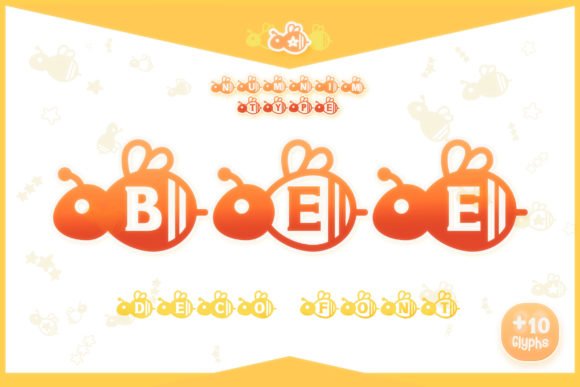
The Buzz on Bee Font: Elevating Your Designs with a Touch of Whimsy
Have you ever been brainstorming ideas for a project, and suddenly, a spark of creativity hits you? Maybe it’s a playful combination of colors, a quirky character, or a fresh font that makes your design pop. For many designers, that ‘aha’ moment is what drives their creativity and inspires them to push boundaries.
One such font that can spark that magic is Bee Font – a delightful, handcrafted decorative font that’s perfect for adding a dash of fun to your designs. With its playful characters and PUA encoding, Bee Font is ideal for stickers, mugs, t-shirts, and so much more. As a designer, you’ll love the ease of accessing all glyphs and swashes, making it a valuable addition to your creative toolkit.
Bee Font Key Features
• Font Style: A unique, hand-drawn font with a playful and whimsical feel.
• Character Set: Includes a wide range of characters, including uppercase and lowercase letters, numbers, and punctuation marks.
Bee Font Review
As a designer, I was excited to dive into the world of Bee Font. I’ve worked with a variety of fonts, and I have to say, this one has some unique qualities that set it apart. ✨ One of the things that works well is its playful, handwritten feel. The font is perfect for creating a fun, whimsical atmosphere in your design, and it’s especially great for branding and marketing materials.
Another strength of Bee Font is its versatility. It comes in a range of styles, from bold and confident to delicate and elegant. ✨ Whether you’re looking to create a modern, edgy vibe or a more traditional, classic look, Bee Font has got you covered. I also appreciate the fact that it’s highly customizable, allowing you to tailor the font to your specific needs.
• ⚠️ While Bee Font is highly versatile, it may not be the best choice for complex, technical documents or presentations. The font’s playful feel can come across as unprofessional in more formal settings.
• ⚠️ Some users may find the font’s customizability to be overwhelming. With so many options available, it can be difficult to know where to start.
Overall, I think Bee Font is a solid choice for designers looking to add a bit of personality to their work. While it may have some limitations, its strengths far outweigh its weaknesses. With a little practice and experimentation, you can create some truly stunning designs with this font. I would definitely recommend it to anyone looking to add a touch of whimsy to their design portfolio.
Getting the Most Out of Bee Font
To get the most out of Bee Font, experiment with different font sizes, colors, and styles. Use the font effects to add a touch of whimsy or sophistication to your design. Consider pairing Bee Font with other fonts to create a unique and eye-catching look.
Bee Font is perfect for:
– Children’s books and educational materials
– Branding and marketing materials
– Social media graphics and ads